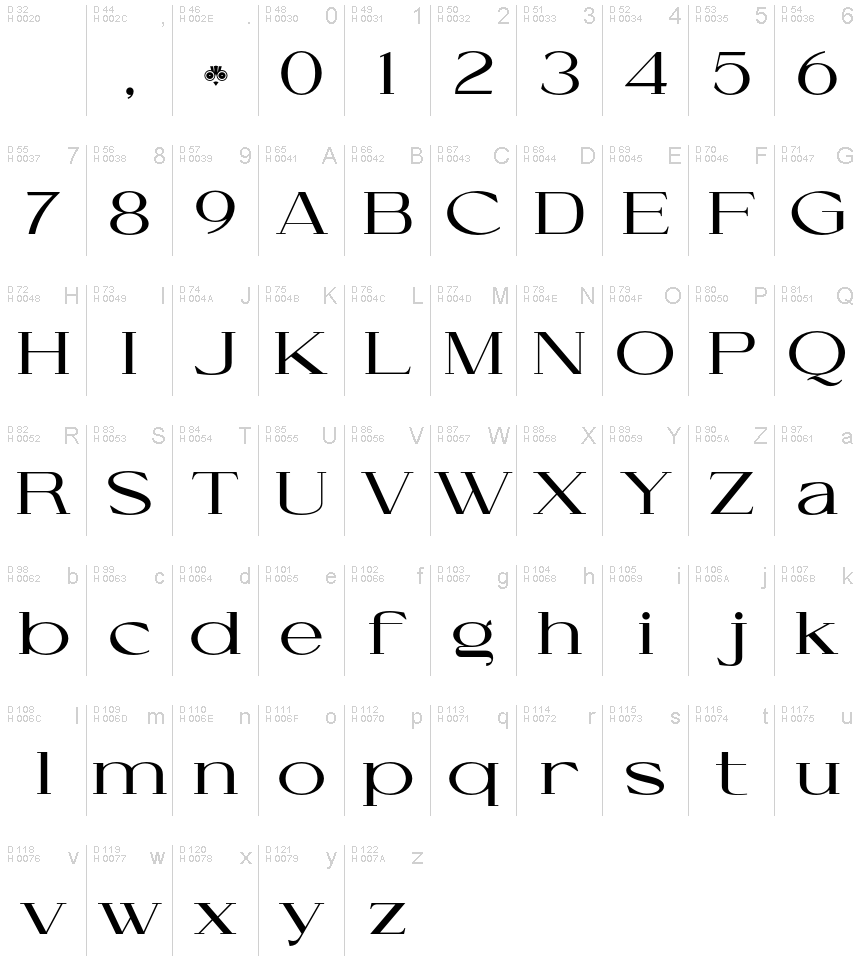
Cellofy-SemiBoldExpanded
Cellofy SemiBold Expanded font by Owlking Project captivates with its striking serif elegance. As part of the Cellofy family, this expanded font offers a distinctive presence that balances classic sophistication with modern flair. Ideal for eye-catching headlines and impactful brand identities, its expanded style ensures readability while drawing attention.